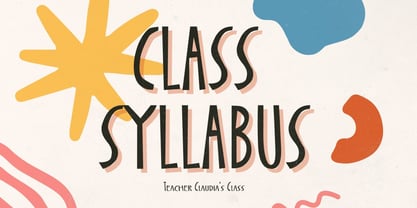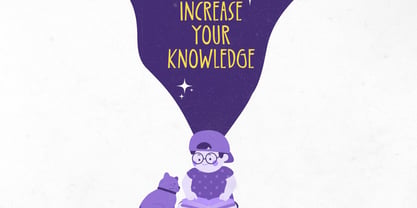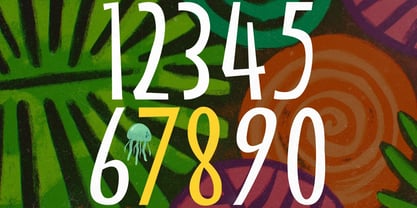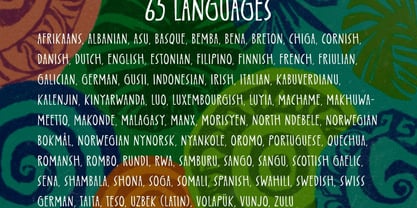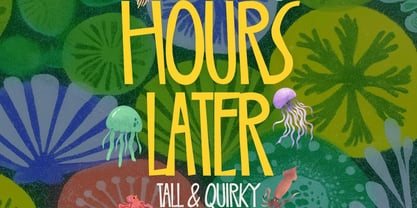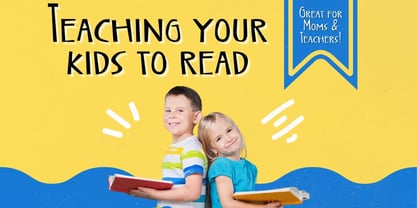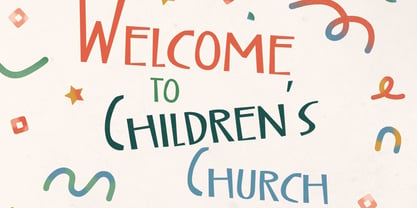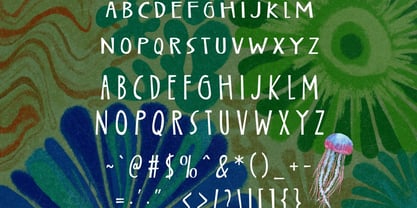
Hours Later
by Hipfonts
The Hours Later Font Family was designed by Igor Ovsyannykov and published by Hipfonts. Hours Later contains 1 styles.
Hours Later is a tall, playful, and quirky display font designed to bring joy, personality, and fun to your designs. With its friendly shapes and cheerful rhythm, this typeface is perfect for kids, toddlers, babies, and playful brands that want to feel warm and inviting. Ideal for birthday parties, events, cartoons, children’s books, posters, packaging, classroom materials, and social media graphics, Hours Later adds instant charm without sacrificing readability. Its tall proportions and whimsical letterforms make every word feel animated and full of life. Whether you’re designing for a nursery, kids brand, party invitation, or cartoon-style project, Hours Later delivers a playful tone that feels happy, imaginative, and approachable.
Hours Later